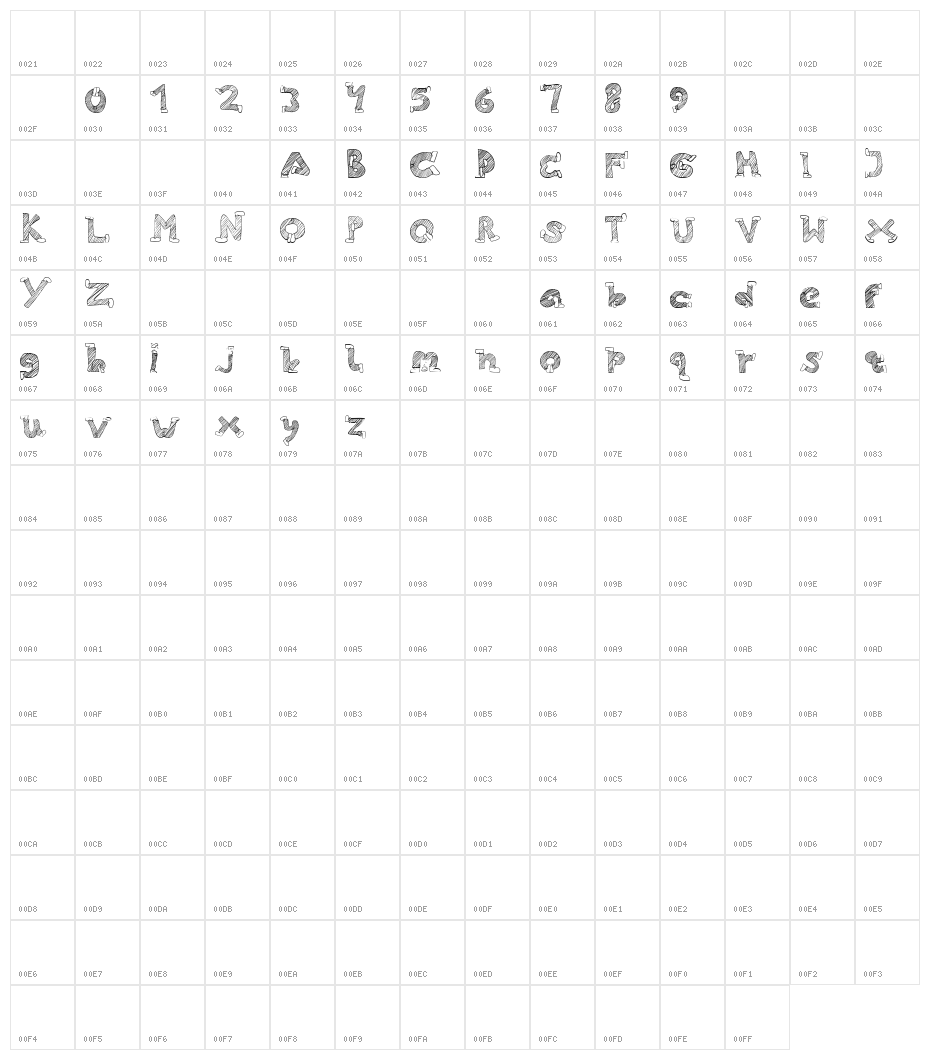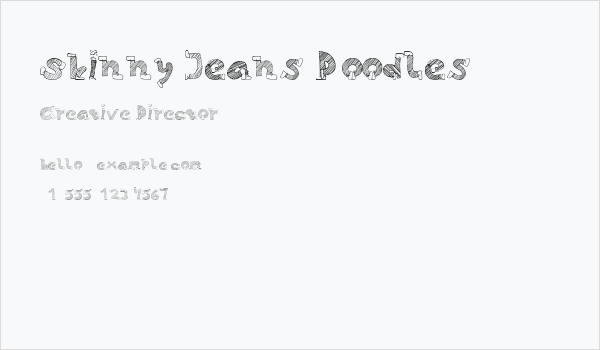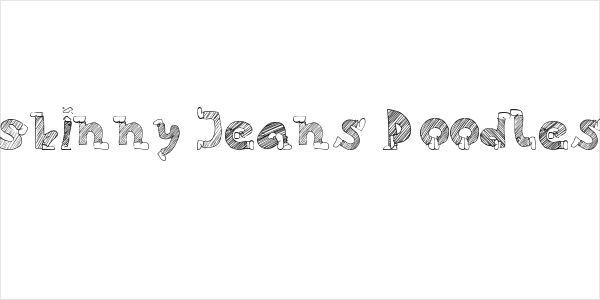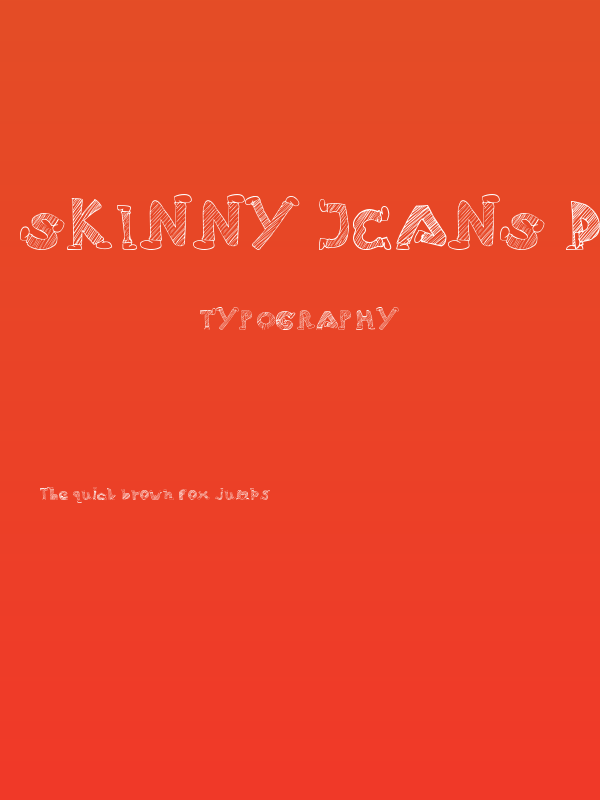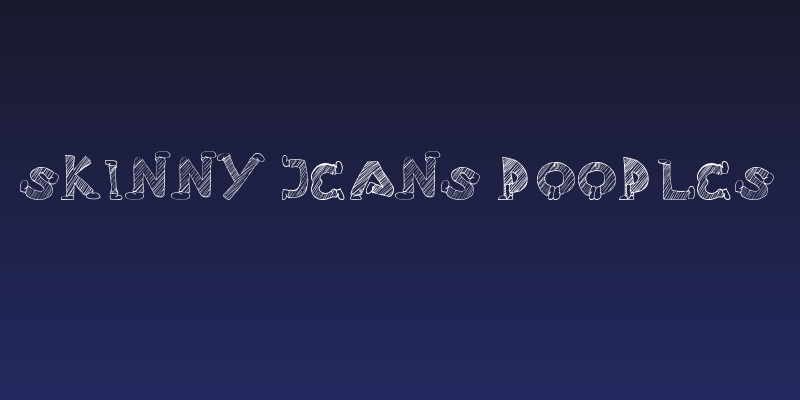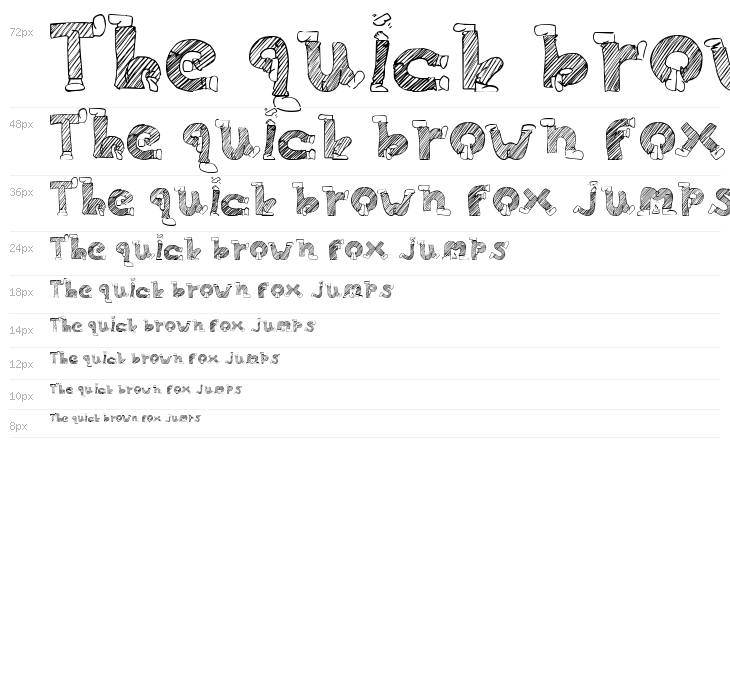
Skinny Jeans Doodles Font
Skinny Jeans Doodles Description
This playful and whimsical font features a hand-drawn, doodle-like style with a textured, sketchy appearance. Each character is adorned with unique, irregular patterns and shading, giving it a lively and informal feel. The letters are bold and rounded, with a consistent thickness throughout, and the playful design elements make it stand out. The font exudes a casual and fun vibe, perfect for projects that require a touch of creativity and personality. Its distinctive style makes it ideal for children's books, playful branding, or any design that seeks to convey a sense of joy and spontaneity.
| Proposed Projects | Ideal for children's books, playful branding, creative posters, and informal invitations. |